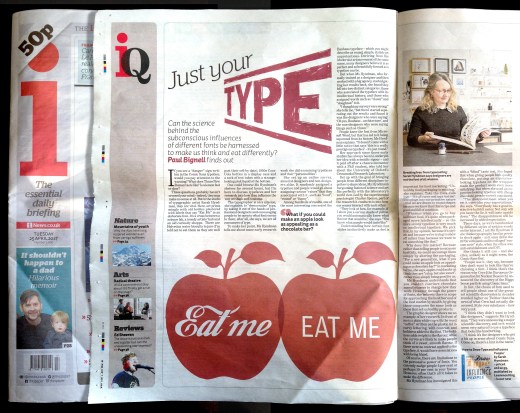
Take part in the Typographic Interventions project
What is a typographic intervention? What if it’s not what it says on the tin? Can typography alter your experiences, or nudge you to change your behaviour?
This year we are exploring the potential for creating typographic interventions that initiate positive behaviour change. You are invited to take part in typographic research. Some of the experiments you will take part in are in their early proof of concept stages, for others data is being gathered potentially to be published as a future collaborative study.
i Newspaper “The science of Coca Cola’s ‘eat me’ font can make us eat healthily”
“If you see a “danger” sign written in the Comic Sans typeface, would you pay attention to the warning? What does Times New Roman taste like? Is a lemon fast or slow?” Paul Bignell for i Newspaper.
The Times: Using right fonts on labels could tackle obesity
“Some believe that smaller chocolate bars and sweets are the answer, others want a tax on sugary drinks or to encourage children to be more active. One expert, however, has come up with a novel solution to child obesity.
Sarah Hyndman, a graphic designer, says that the right typefaces can “nudge” people into healthier food choices, and this should start in schools…”
The article references the food can experiment that ran at the recent book launch at Tate Modern, and at the Type Tasting event at Shoreditch House for the D&AD Fringe Festival, were you there?